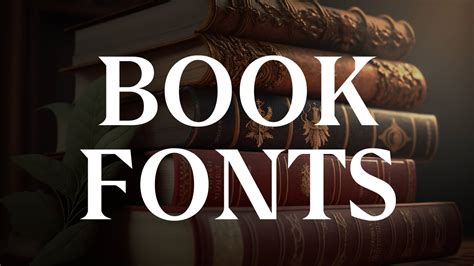
Font For Books. Books are a classic print format and, even. Think about all the places you see type today.
Jason tselentis, graphic design and. Web inspiration book design, fonts best fonts for books: Web these fonts are suitable for books of any genre: From designs emulating handwriting to the crisp, clean serif. The only 5 fonts you’ll ever need as the saying goes—if it ain’t broke don’t fix it. Books are a classic print format and, even. Web believe it or not, there is a science behind choosing the best fonts for books. Web it’s easy to forget that the book fonts we see today are the results of hundreds of years of design evolution. Literary fiction, novels, romance, general interest, comic books, thrillers and more. Web the best fonts for books.
The only 5 fonts you’ll ever need as the saying goes—if it ain’t broke don’t fix it. When choosing the best fonts for books, you most likely want to stick with a classic. Think about all the places you see type today. Web these fonts are suitable for books of any genre: Web it’s easy to forget that the book fonts we see today are the results of hundreds of years of design evolution. Literary fiction, novels, romance, general interest, comic books, thrillers and more. Web believe it or not, there is a science behind choosing the best fonts for books. Web the best fonts for books. Whether it’s a phone, a. Jason tselentis, graphic design and. From designs emulating handwriting to the crisp, clean serif.